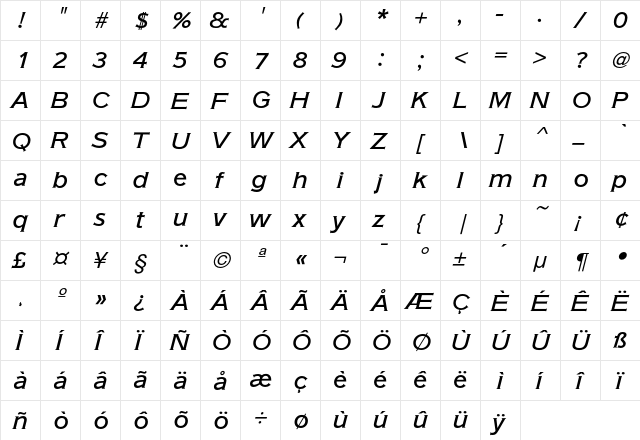
AmericanGothic MediumItalic Font Preview
AmericanGothic MediumItalic
Design Context for AmericanGothic Typeface
AmericanGothic has the quiet confidence of well-executed sans-serif typography: versatile, unobtrusive, and dependable at any size. The dynamic lean of this cut emphasises speed and emphasis in any layout.
Font Pairing: Works well alongside a characterful serif or display font that can carry the expressive load while AmericanGothic handles the functional copy.
Pro Tip: Use AmericanGothic for UI labels, navigation, and short-form body copy where clean legibility is the priority.